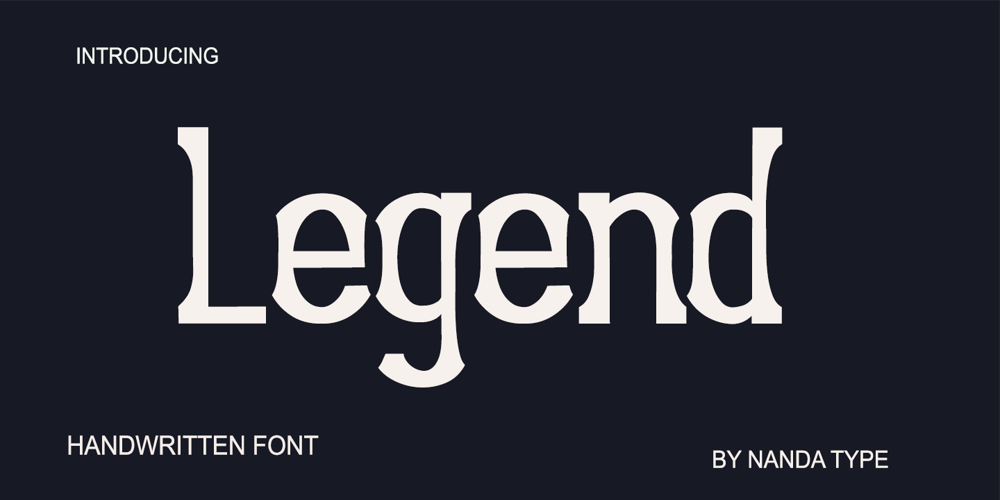
Legend
Legend font
Legend Font Family was designed by Nanda Type and published by Nandatype Studio. Legend contains 1 styles and family package options. Legend font with simple models of natural and comic, you can take advantage of the opportunity at any time one wonderful way to highlight the celebration of the feast of your best, because these fonts will be a driving force for purposes such as cover design, wedding invitations, party , graduation, birthday, gathering, etc.Font Legend if you want to use for your work this font can be used to easily and simply because there are a lot of features in it contains a complete set of letters lower and uppercase letters, assorted punctuation, numbers, and multilingual support.